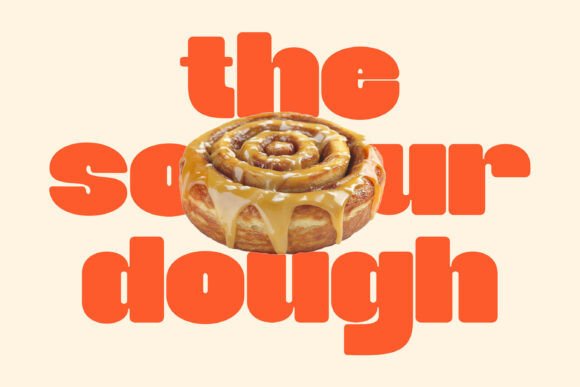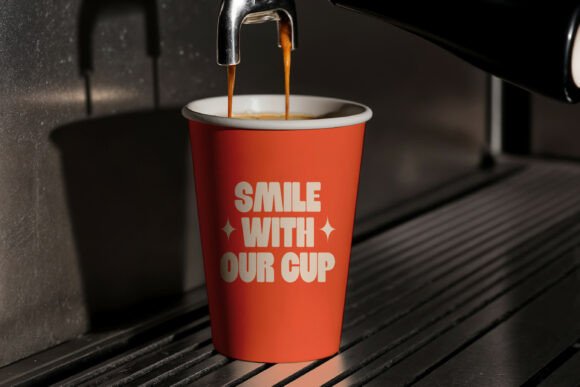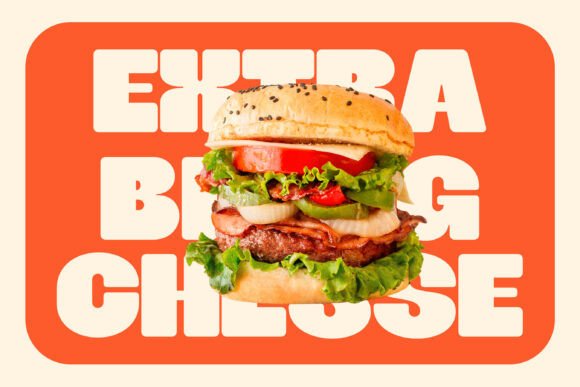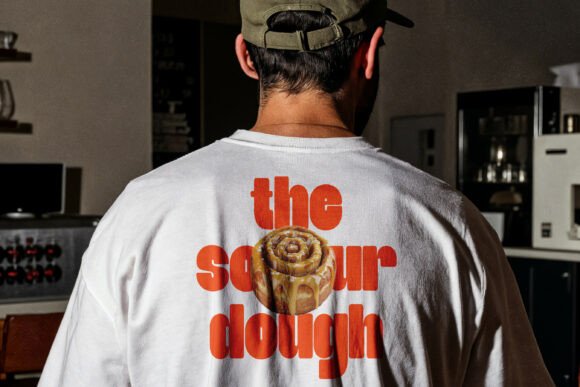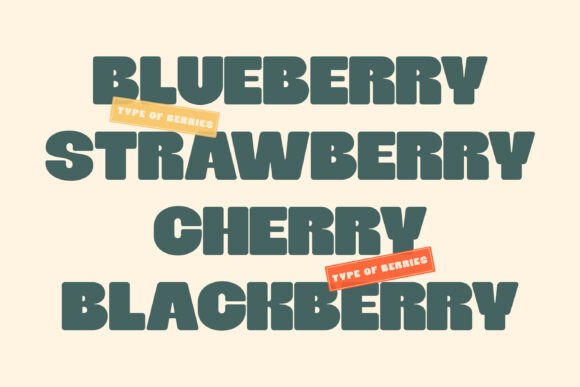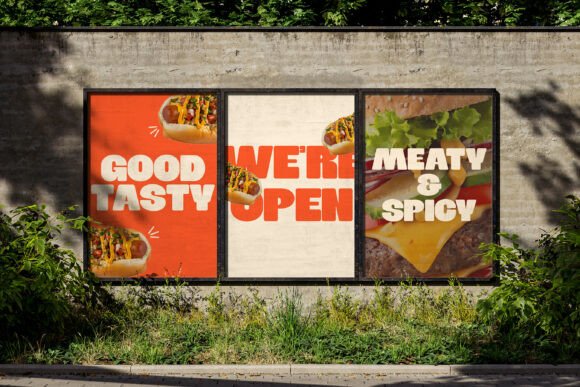
Introduction to Shagie Boogie Font
Shagie Boogie is a bold, chunky sans-serif display font with a playful and confident personality.
Designed to stand out, this typeface features thick strokes, rounded shapes, and a strong visual presence that instantly grabs attention Perfect for headlines, posters, branding, packaging, social media graphics, logos, merchandise, and any design that needs a fun yet powerful look.